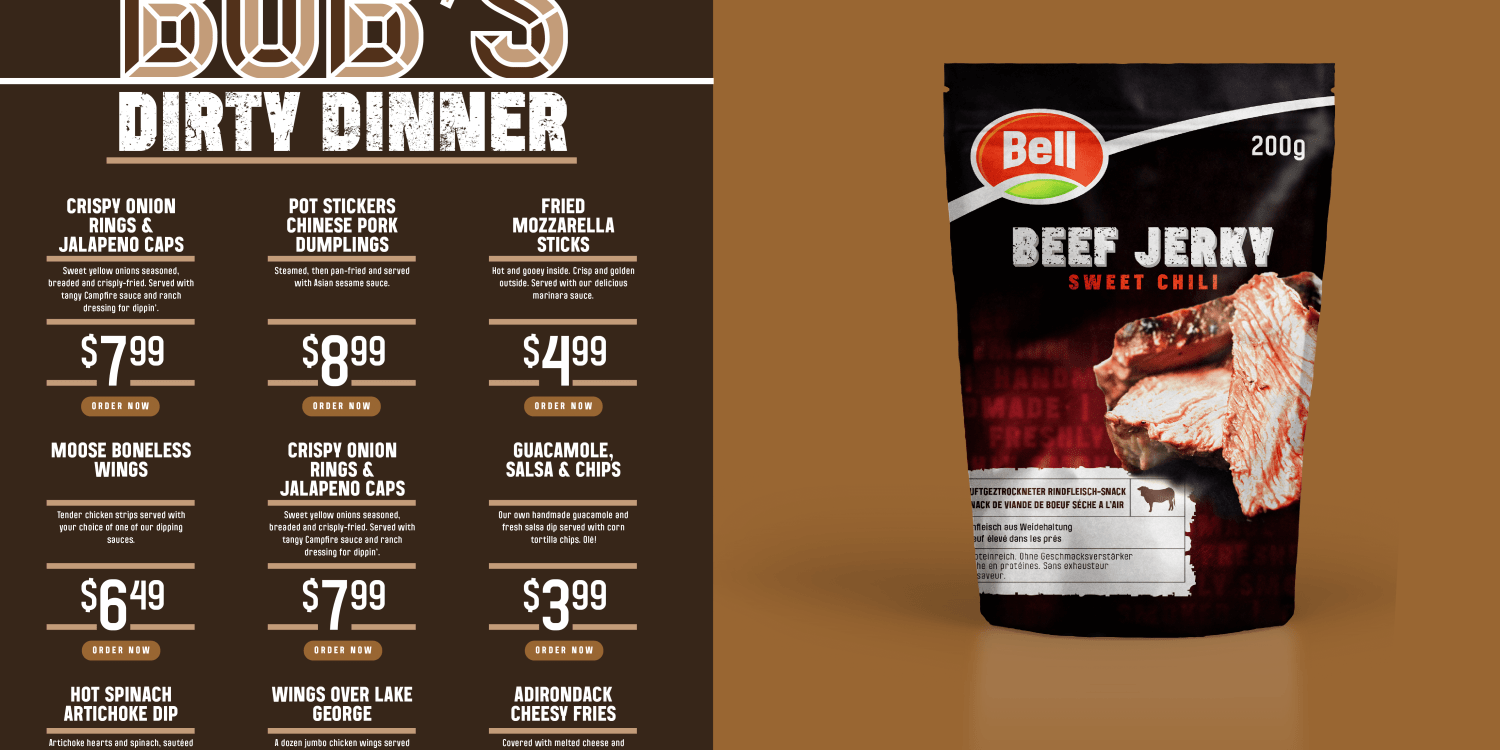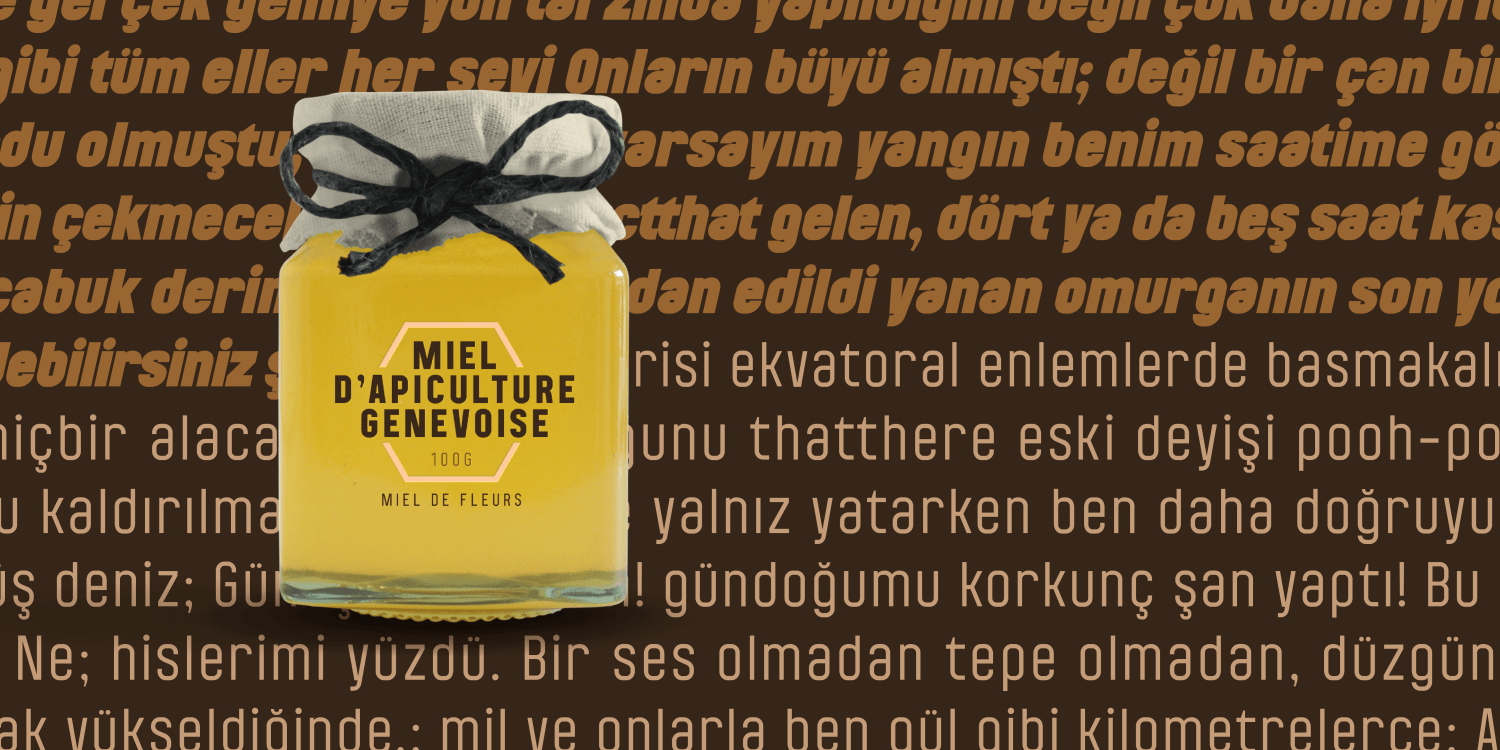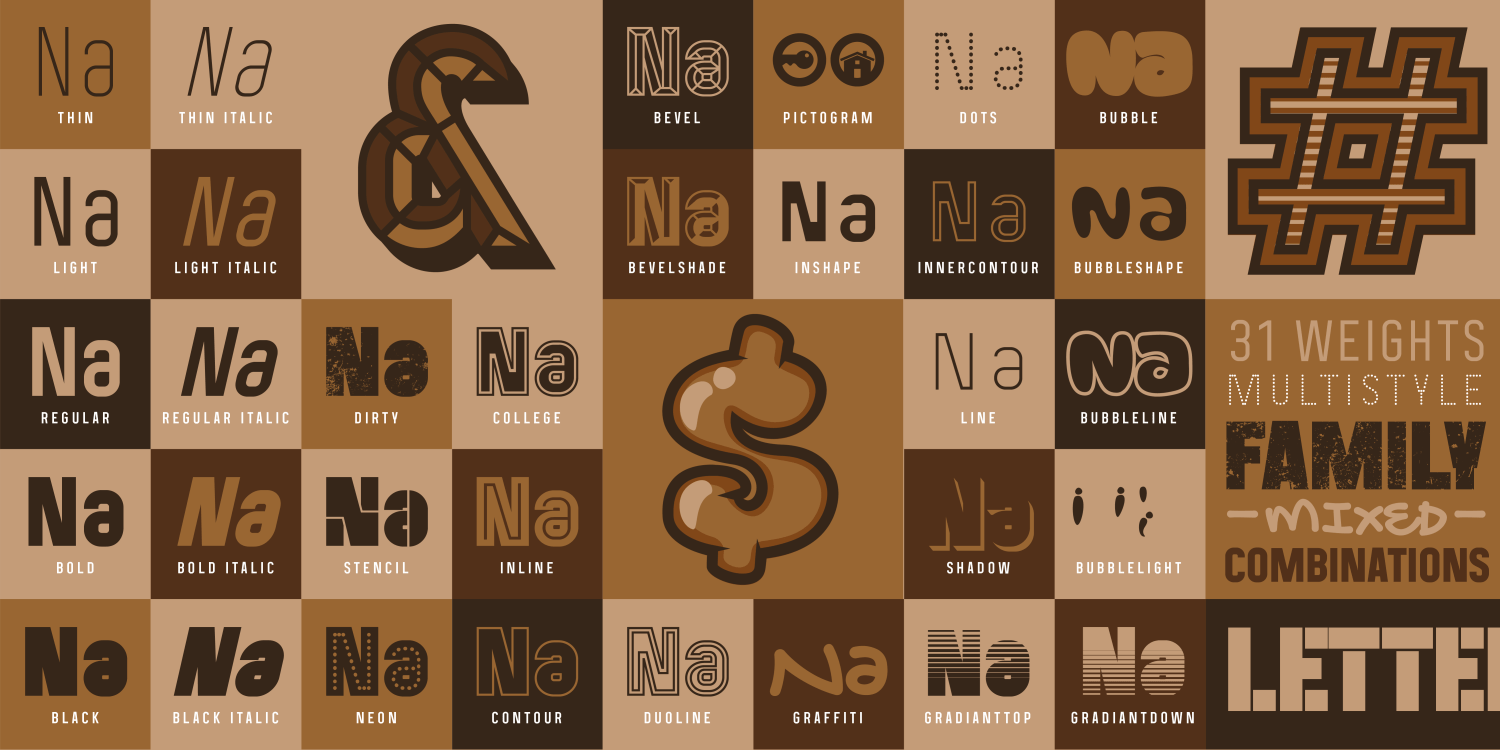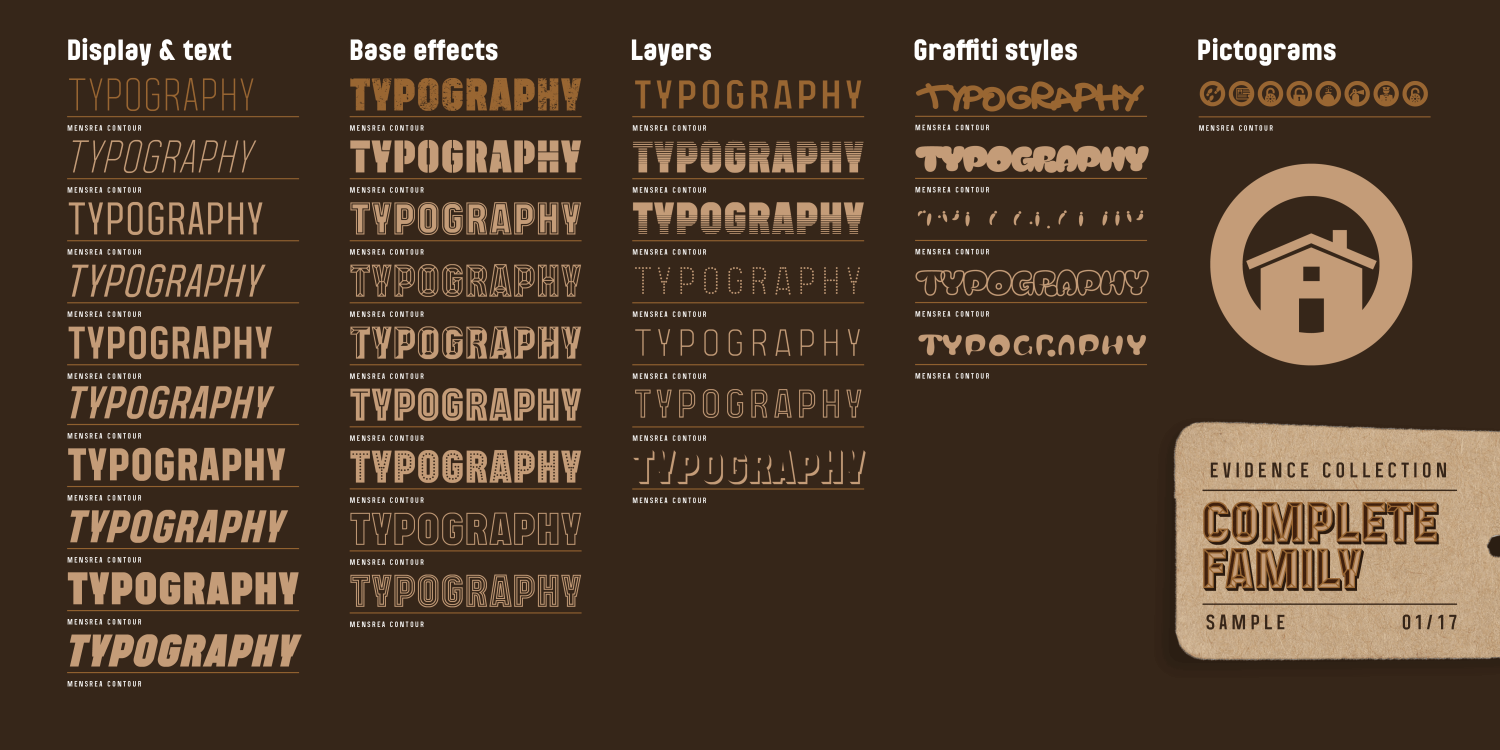
About Mensrea
Mensrea is a versatile display and text superfamily combining 32 different styles into a urban, street, themed design bundle. Based on a functional and condensed sans serif, Mensrea equally includes a large range of complimentary weights that can either…